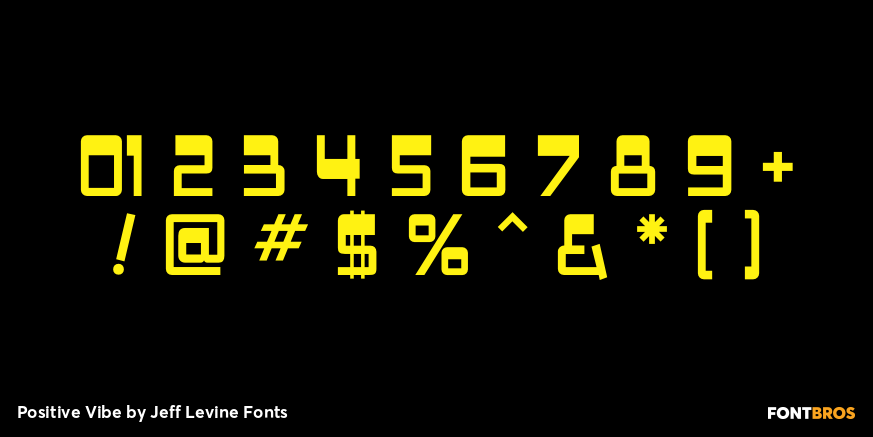
Positive Vibe
Positive Vibe JNL is a meeting of two eras... The model for this font was Jeff Levine's Two Reeler JNL, modeled after title cards in a Charlie Chaplin movie from the beginning of the 1900s. With a few stroke weight shifts, this versatile font takes on the image of the "Peace and Love" generation of the mid-60s and early 70s.